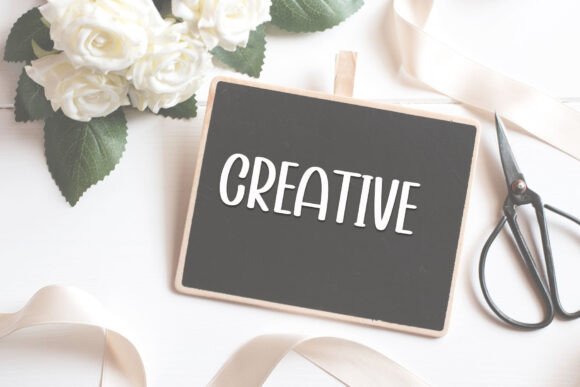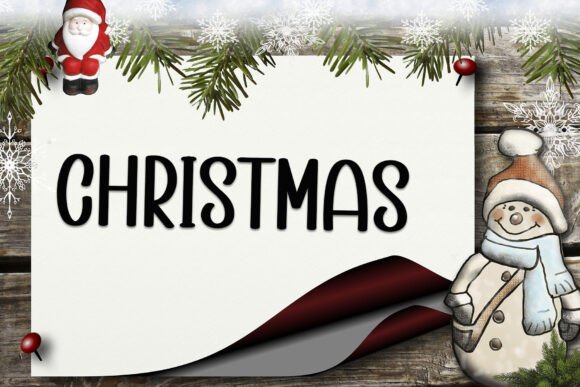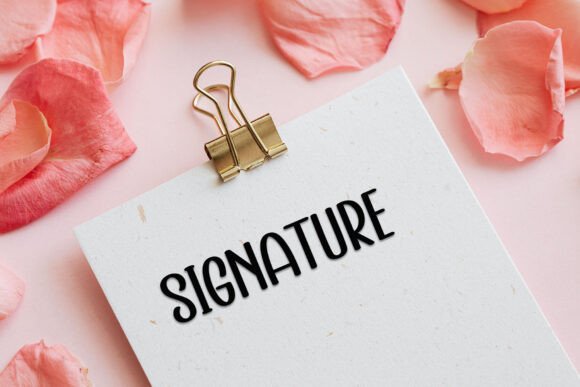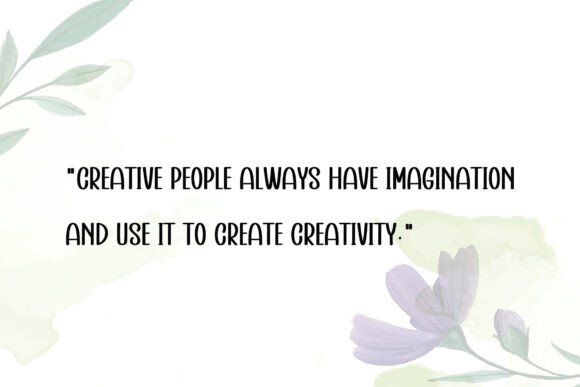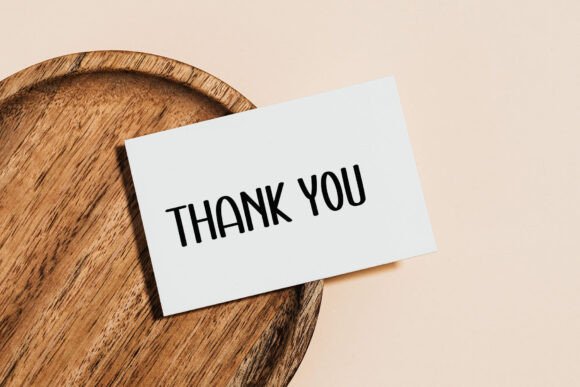
Introduction to Halloween Comic Font Font
Fonts play a crucial role in design, and the Halloween Comic Font font is a typeface that brings both character and versatility to any project. Whether you’re working on a branding project, a website, or a print design, the Halloween Comic Font font offers a unique style that can elevate your work.
Halloween Comic is a festive and happy typeface that captures the spirit of the holiday season.
With its decorative elements and unique flair, it adds a touch of charm to your designs Perfect for greeting cards, gift labels, and holiday-themed projects, this font brings a cheerful and nostalgic atmosphere to your words.
Key Features of Halloween Comic Font Font
Why Choose Halloween Comic Font Font?
The Halloween Comic Font font is more than just a typeface – it’s a design tool that helps you communicate your message with style and clarity. Its unique character set and versatile design make it suitable for a wide range of applications, from elegant invitations to bold headlines.
With its carefully crafted letterforms and balanced proportions, the Halloween Comic Font font ensures readability and visual appeal across all mediums.
What makes Halloween Comic Font font special?
The Halloween Comic Font font stands out with its unique design, exceptional readability, and versatility across various design applications.